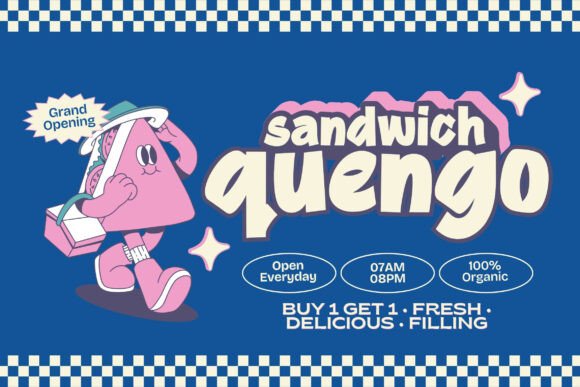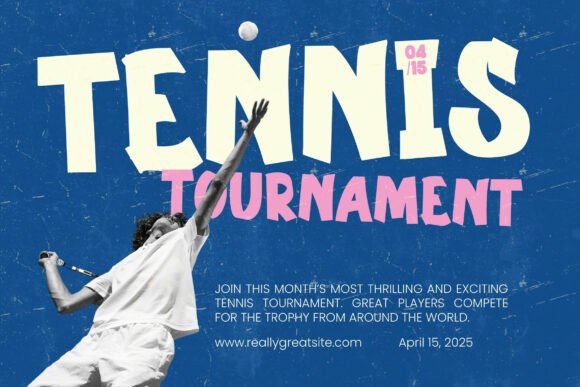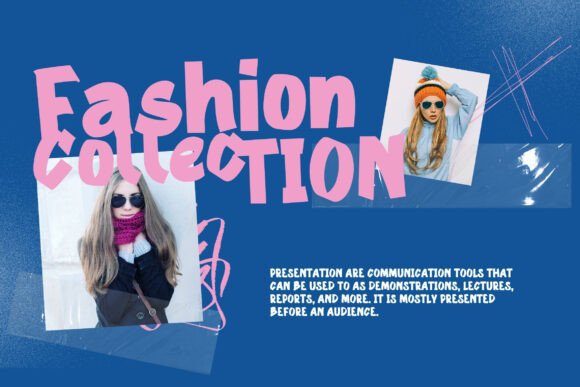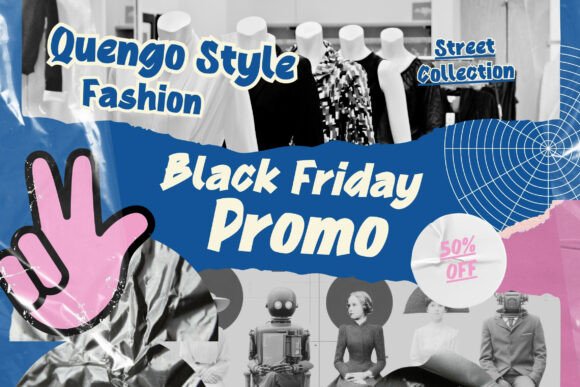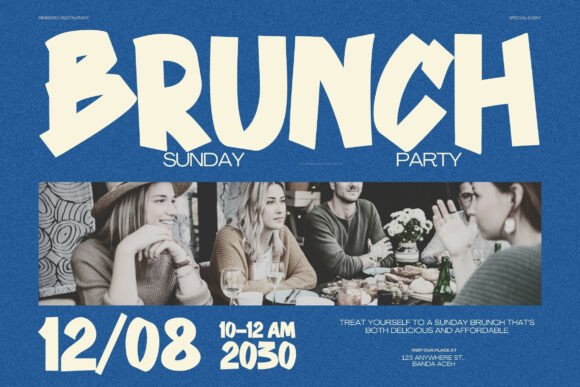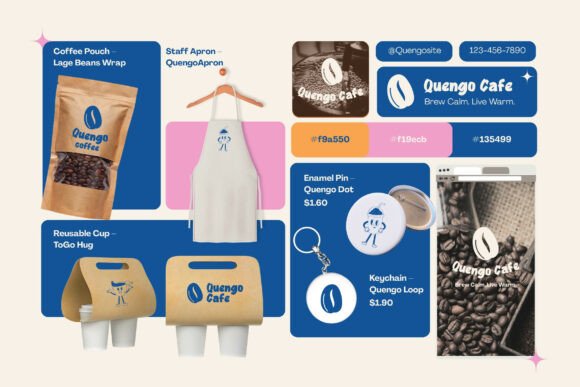
Introduction to Quengo Font
Quengo – Modern Display Typeface Quengo is a bold modern display typeface infused with a playful retro attitude.
Designed to command attention, it features smooth curves, chunky letterforms, and confident proportions that make every headline feel powerful and expressive Inspired by vintage pop graphics and nostalgic poster aesthetics, Quengo brings a fresh contemporary edge to classic retro energy.